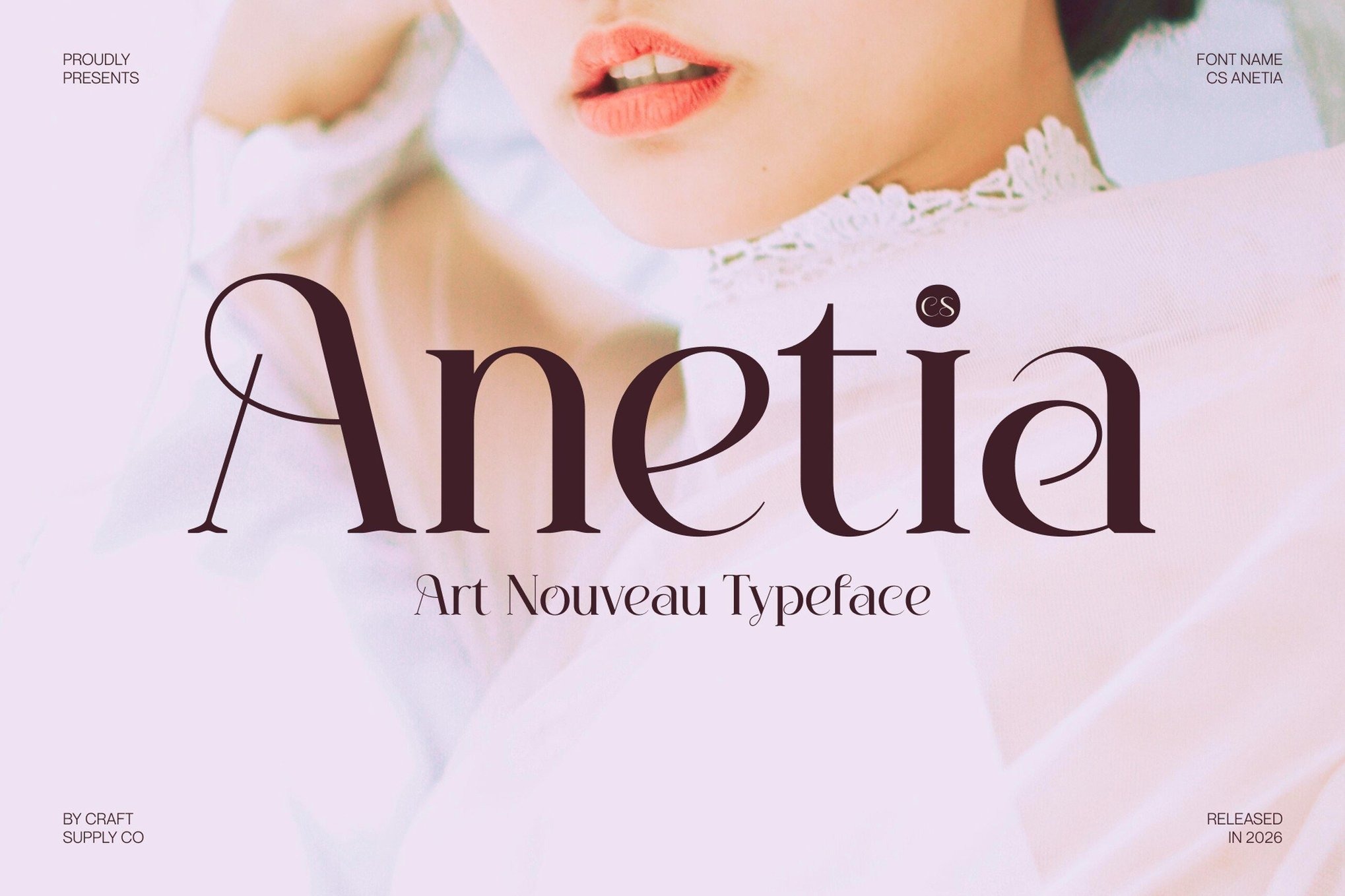
Anetia Font
Anetia Font is a stylish typeface that enhances visual appeal and works effortlessly in many design contexts. CS Anetia – Art Nouveau Serif with Flowing Elegance Art Nouveau–Inspired Serif with Artistic Character This is an Art Nouveau–inspired serif font designed to celebrate beauty through graceful movement and refined detail. Its elegant letterforms draw inspiration from classic decorative typography while maintaining a fresh, modern sensibility. The result is a typeface that feels artistic, sophisticated, and visually captivating.
Organic Curves with Elegant Lines The defining feature of this font lies in its organic flowing curves and delicate line work. Each character moves with a natural rhythm, creating a sense of harmony and visual fluidity across text. These elegant shapes bring warmth and personality while preserving clarity and readability.
Refined Style with Sophisticated Appeal This font balances decorative charm with a polished serif structure, giving it a refined and timeless presence. Its artistic character enhances visual storytelling and adds depth to creative compositions. The font communicates sophistication, beauty, and graceful confidence in every application.
Perfect for Branding and Editorial Design Ideal for branding, posters, and editorials, this font shines in headlines, titles, and premium typography. Whether used for luxury branding, magazine layouts, or artistic campaigns, it delivers a refined and expressive typographic voice that elevates design with elegance and beauty.